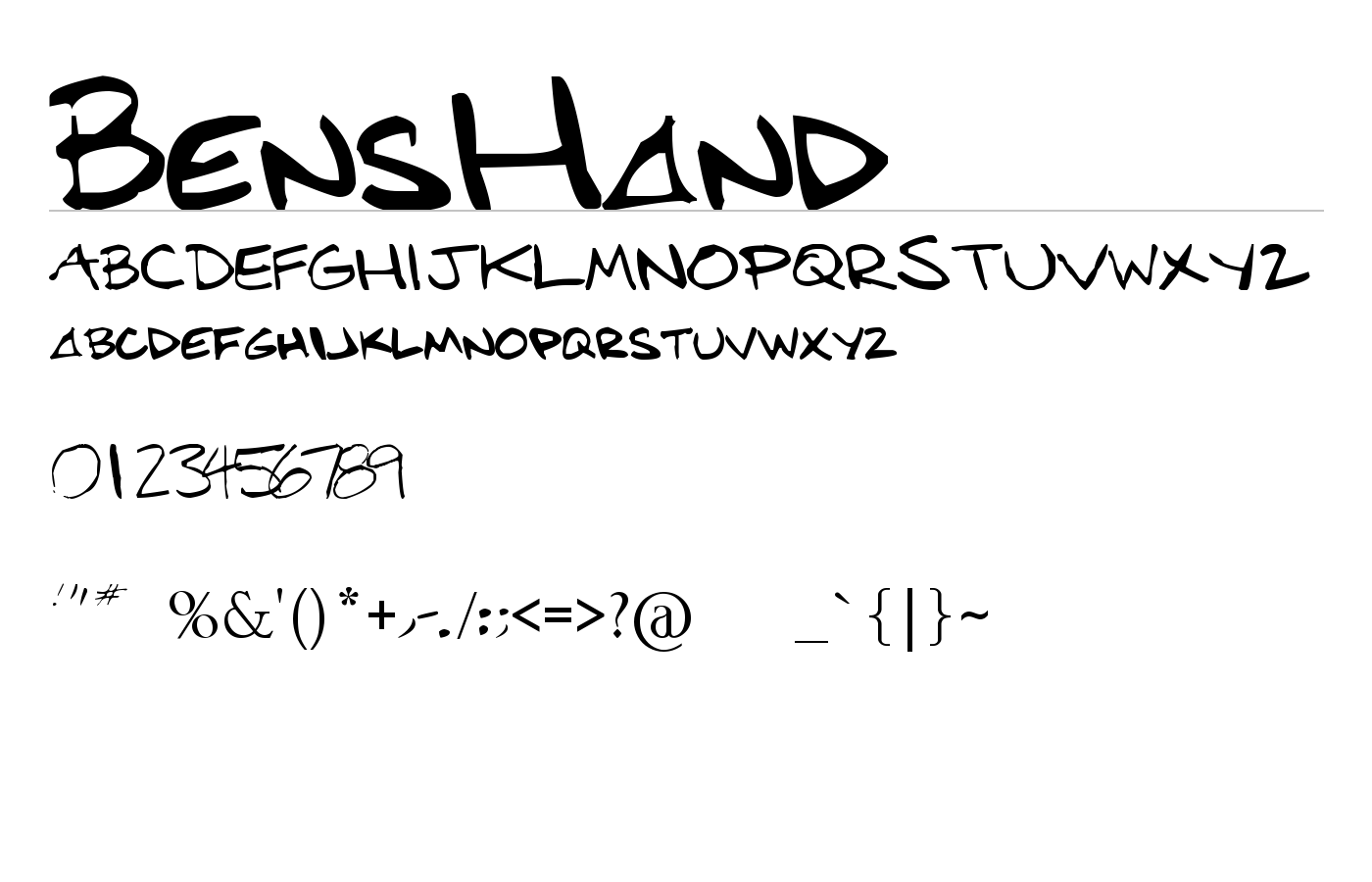
BensHand is a playful and casual handwritten font that features irregular, slightly jagged strokes and a lively, informal feel. Its uneven letterforms and varying stroke widths make it perfect for creative projects, greeting cards, and branding that aims to convey a personal, friendly touch. This font works well in headlines or designs where a hand-crafted, approachable style is desired.
BensHand Font